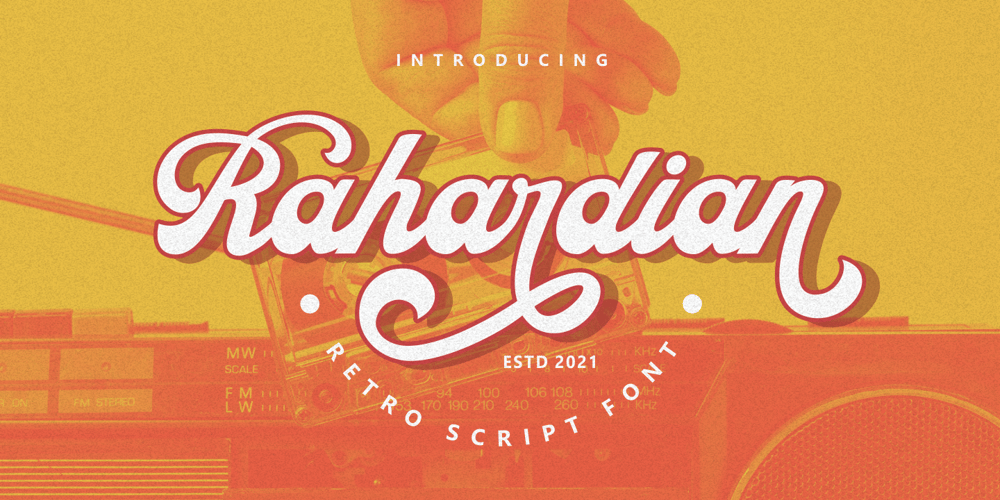
Rahardian Font Family was designed by Putra Novembria Candra Kusuma and published by Putracetol. Rahardian contains 1 styles and family package options. Introducing Rahardian a retro script font. A unique font style with classic retro feel.Rahardian is perfect for vintage and retro design, badge, logos,t-shirt, poster, branding, packaging, signage, book coverand so much more!Come with Opentype feature with a lot of alternates, its help you to make great lettering. This font is also support multi language.